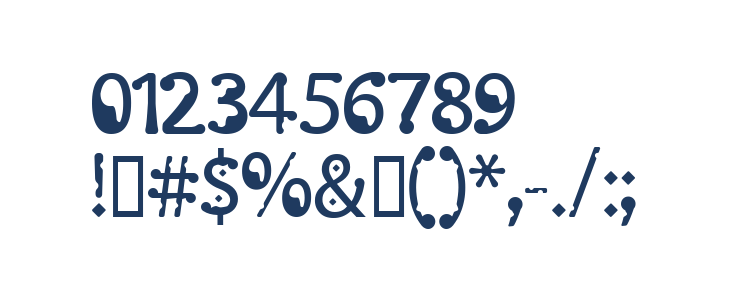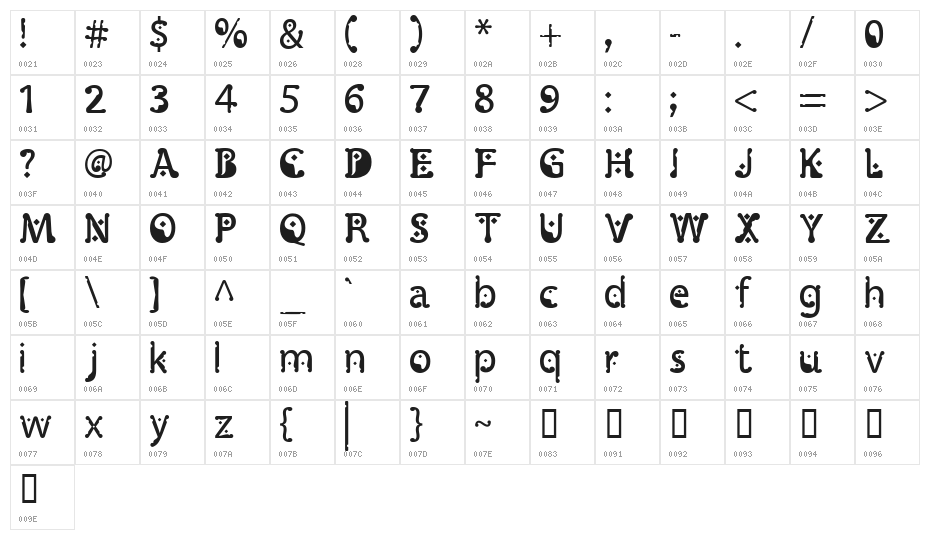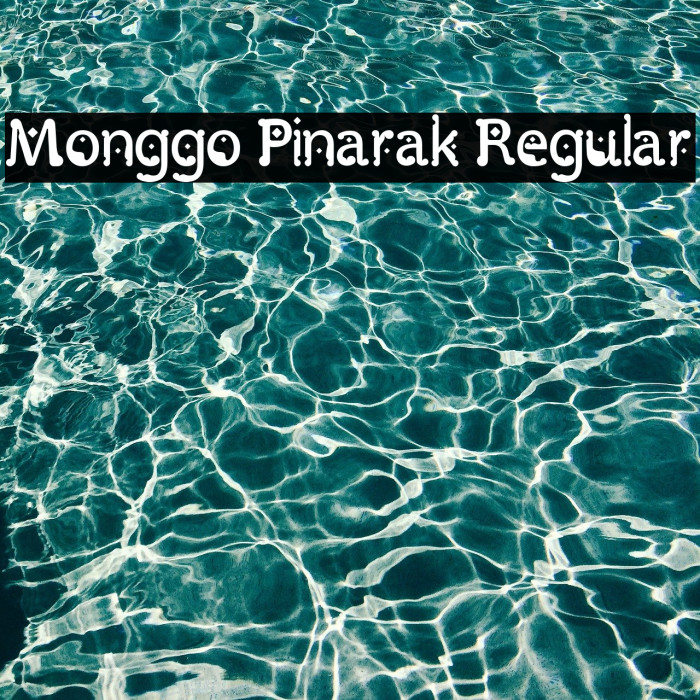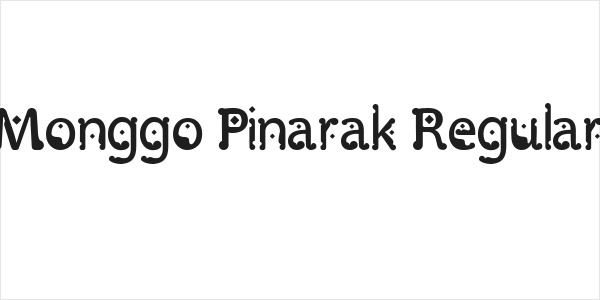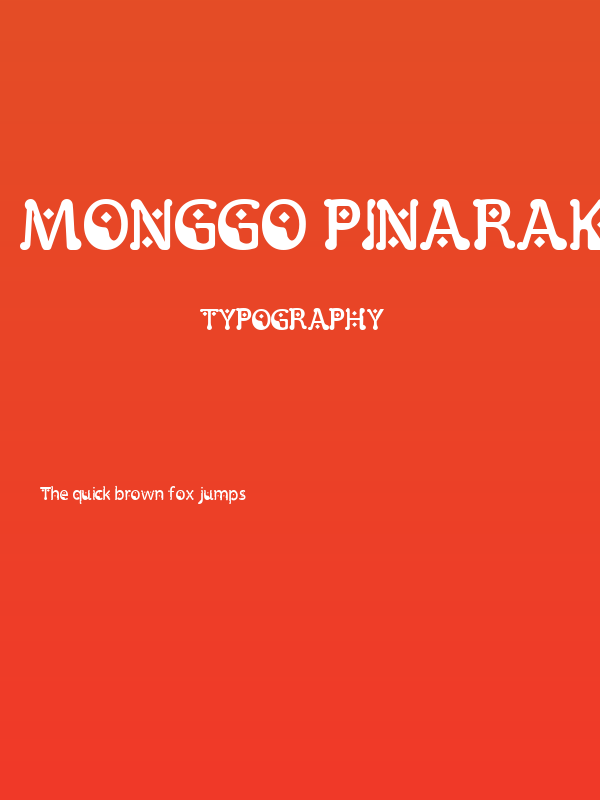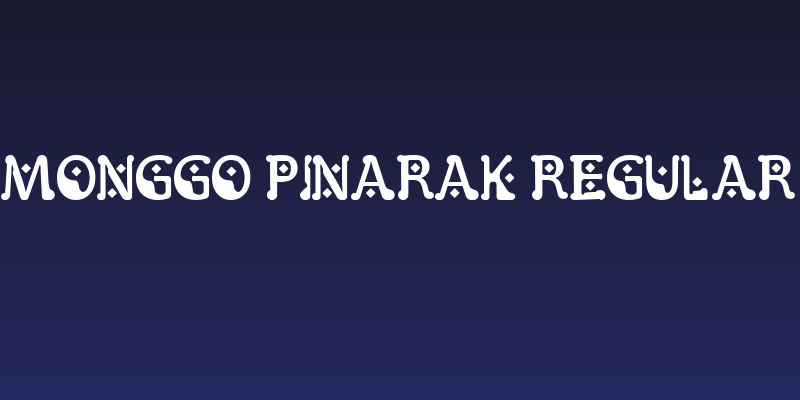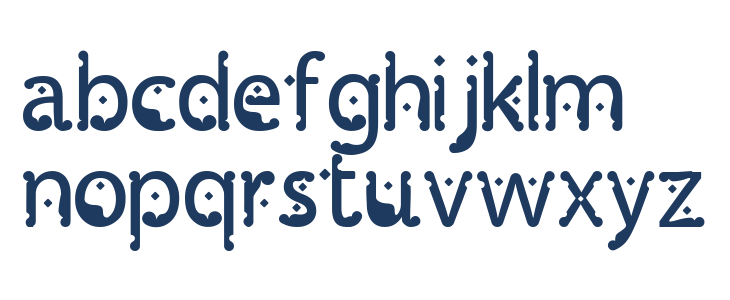
Monggo Pinarak Regular Font
Monggo Pinarak Regular Description
This font features a unique and playful design with a decorative style. The characters are bold and have a whimsical touch, with rounded edges and distinctive cut-out elements that add a sense of fun and creativity. The uppercase and lowercase letters maintain a consistent style, while the numbers and special characters complement the overall aesthetic. The font's boldness and decorative elements make it stand out, making it suitable for projects that require a lively and engaging look.
Proposed ProjectsIdeal for children's books, playful branding, creative posters, and event invitations.